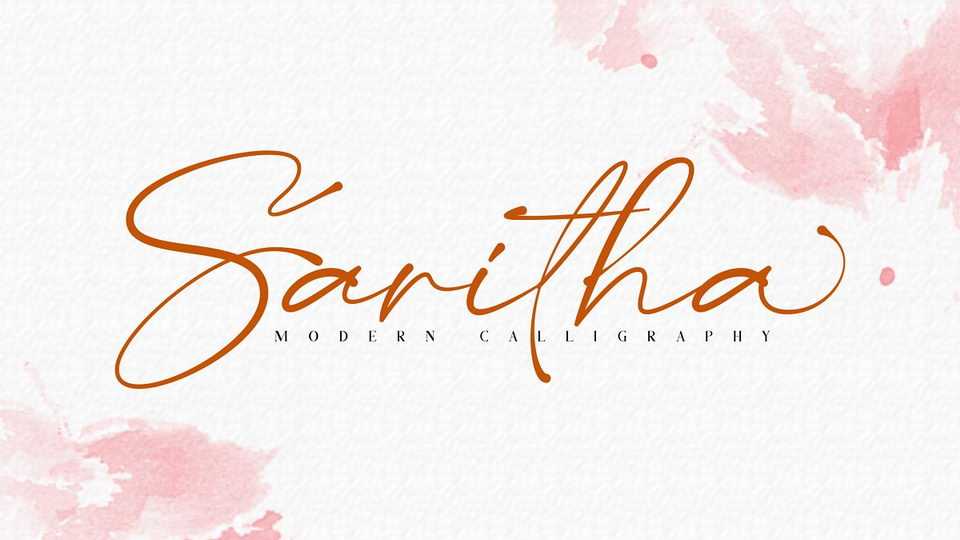
Download Saritha font, a modern calligraphy script, made to resemble hand scratches, so it looks like a natural style like your own hand scratches. Saritha offer beautiful typographic harmony for a variety of design projects.
Designer: Bluestudio